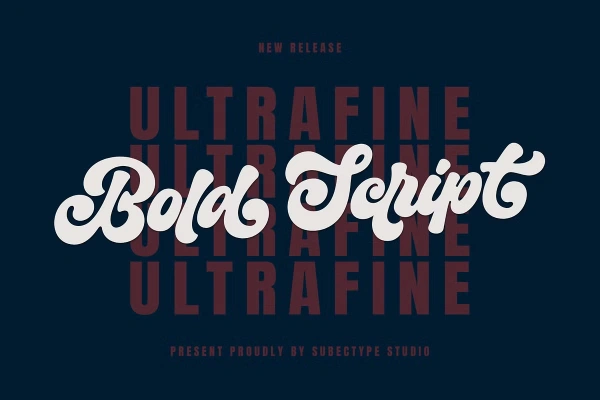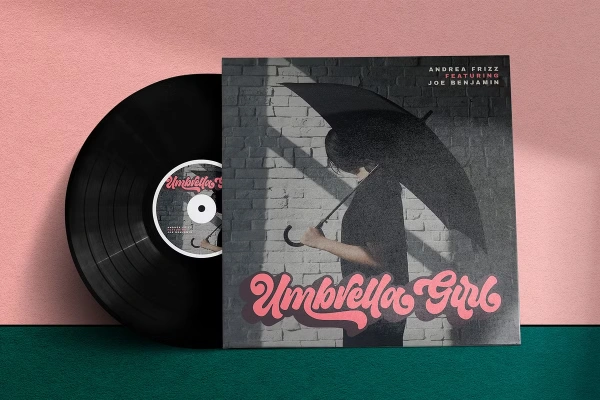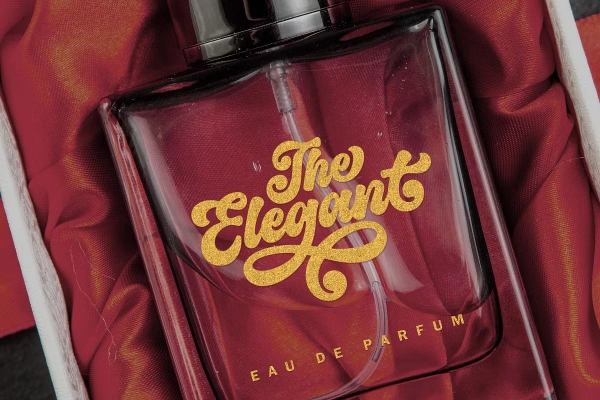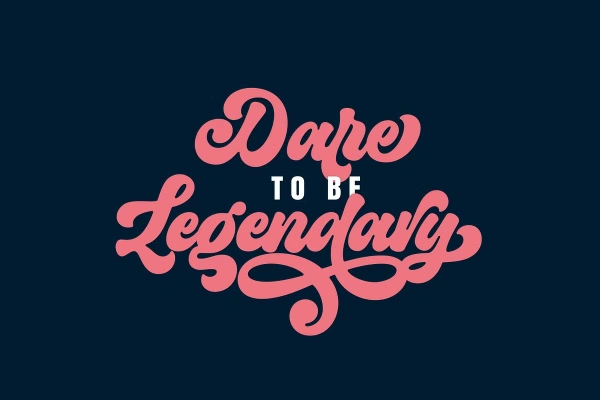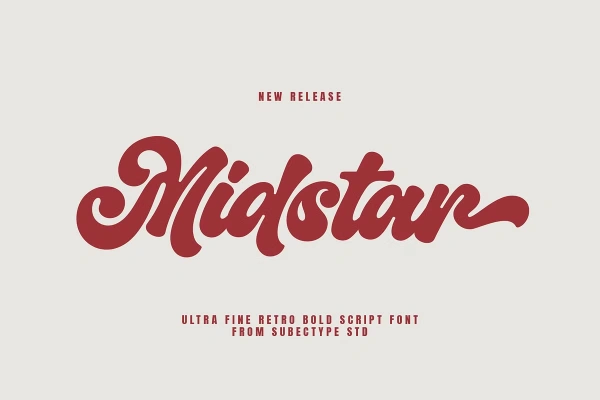
Midstar Font
About Midstar Font
I’m a typographer and graphic designer who experiments with fonts daily. Recently, while searching for something bold yet nostalgic, I came across the Midstar Font. Its retro style caught my eye instantly. I decided to test it in a branding project where I needed a logo and poster design with vintage energy.
Using it in layouts felt natural, almost like it belonged there from the start. Writing this review is my way of sharing a resource I believe can inspire others too. Fonts aren’t just tools; they shape the tone of a design, and this one has a unique voice worth exploring.
Midstar Font and Its Designer
The Midstar Font is a vintage retro font created by Subectype Studio. It pulls direct influence from retro typography and lettering styles of the 70’s and 80’s. Designers from that era often combined bold typography with playful swashes, nostalgic curves, and groovy vibes. Midstar manages to translate that look into digital format without losing authenticity.
This typeface works as a retro script display font that feels like it could sit comfortably on a vinyl cover, an urban poster, or even a streetwear brand. Its roots are in retro typography and lettering traditions, yet it stays versatile enough for modern design workflows.
Features of Midstar Font
It also includes multilingual support, which expands usability for global projects. Whether you’re designing packaging for a local brand or a publication for international readers, the font doesn’t limit expression. With ligatures and SVG alternatives, you can add unique graphic touches to headlines, badges, or signage.
Visually, the typeface leans into groovy and nostalgic tones. It carries elements of 70s fonts, urban lettering, and bold script display work. The shadow styles, extrude options, and signature curves give it flexibility for logos, clothing, and even digital advertisements. Its structure also makes it easy to combine with bold typography styles, which was common in 70’s and 80’s lettering work.
Whether you need a retro script display font, a modern font with vintage roots, or a versatile tool for branding, Midstar offers it all. It feels like a complete design package rather than a simple free download option.
The Midstar Font fits into many design contexts. For branding, it helps craft strong logos and identities. Its bold retro script style makes logos feel memorable and groovy, while alternate letters add flexibility to match brand tone.
In packaging, Midstar stands out on labels and boxes, especially for lifestyle or nostalgic-themed products. It works for book covers, apparel graphics like men’s hoodies or t-shirts, and even signage. The font’s mix of retro and modern styles keeps it versatile.
Posters and advertisements benefit from its retro typography and lettering feel. Paired with bold layouts, Midstar becomes eye-catching. Designers using Adobe, Photoshop, Illustrator, or InDesign will find the font easy to integrate, especially with its multiple formats and webfont option.
Digital spaces also gain from Midstar’s adaptability. On websites, headers styled in this font bring character, while its usage in publications or file formats like SVG creates clean, scalable visuals. Street fonts and urban design projects also feel authentic with its playful swashes and retro-inspired curves.
If you want to experiment, Midstar is perfect for graphic projects where 70’s and 80’s inspired lettering meets modern branding needs. It makes creative work fun, while staying professional enough for commercial use.